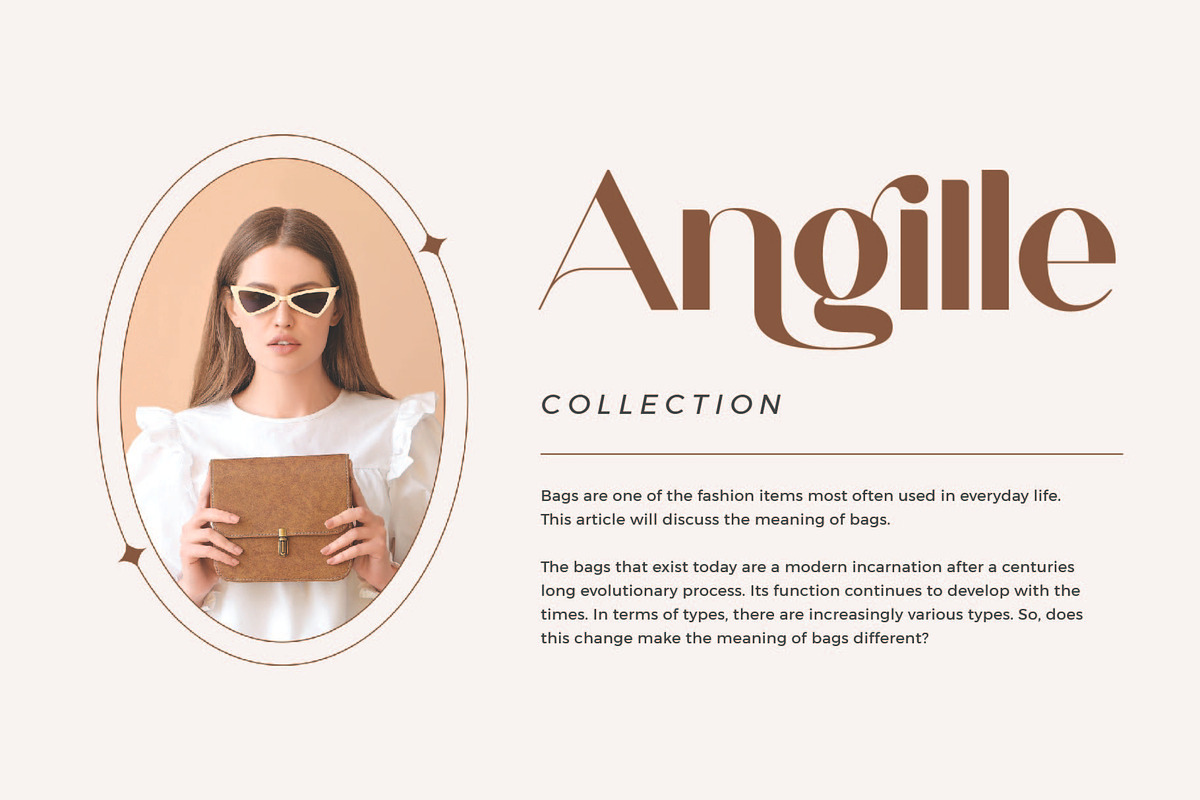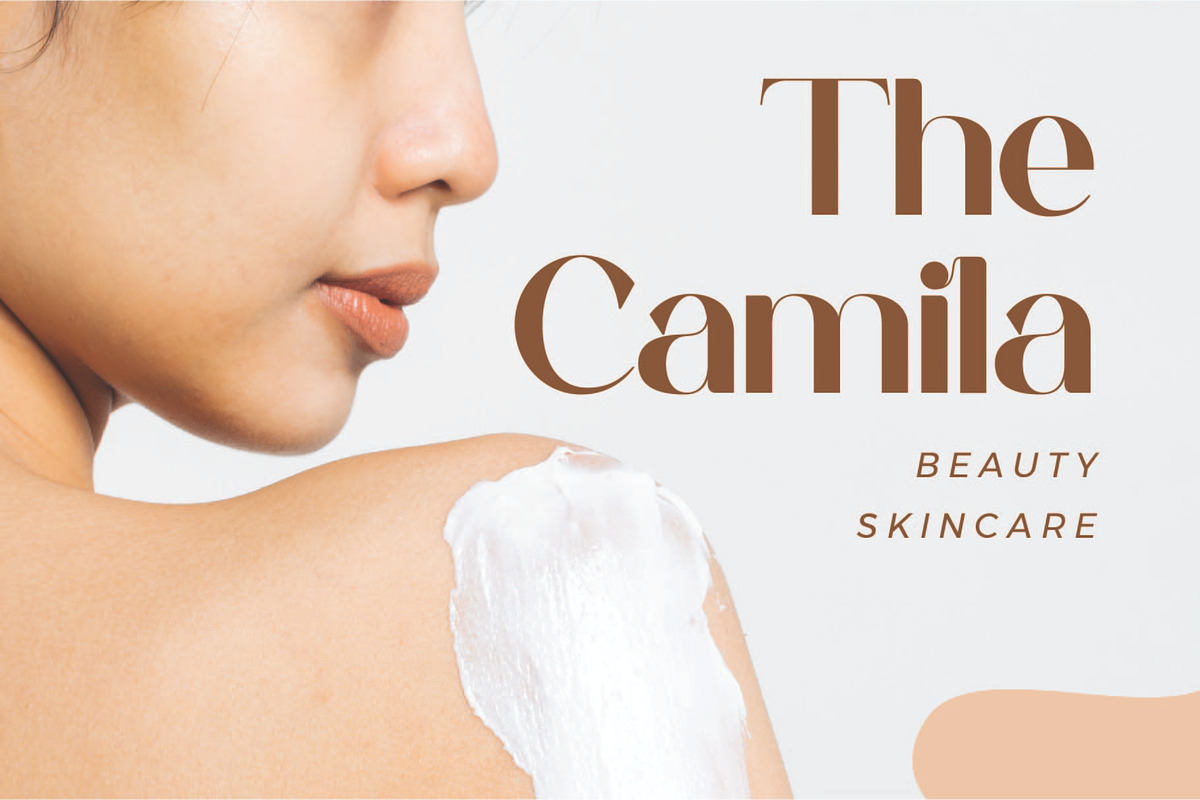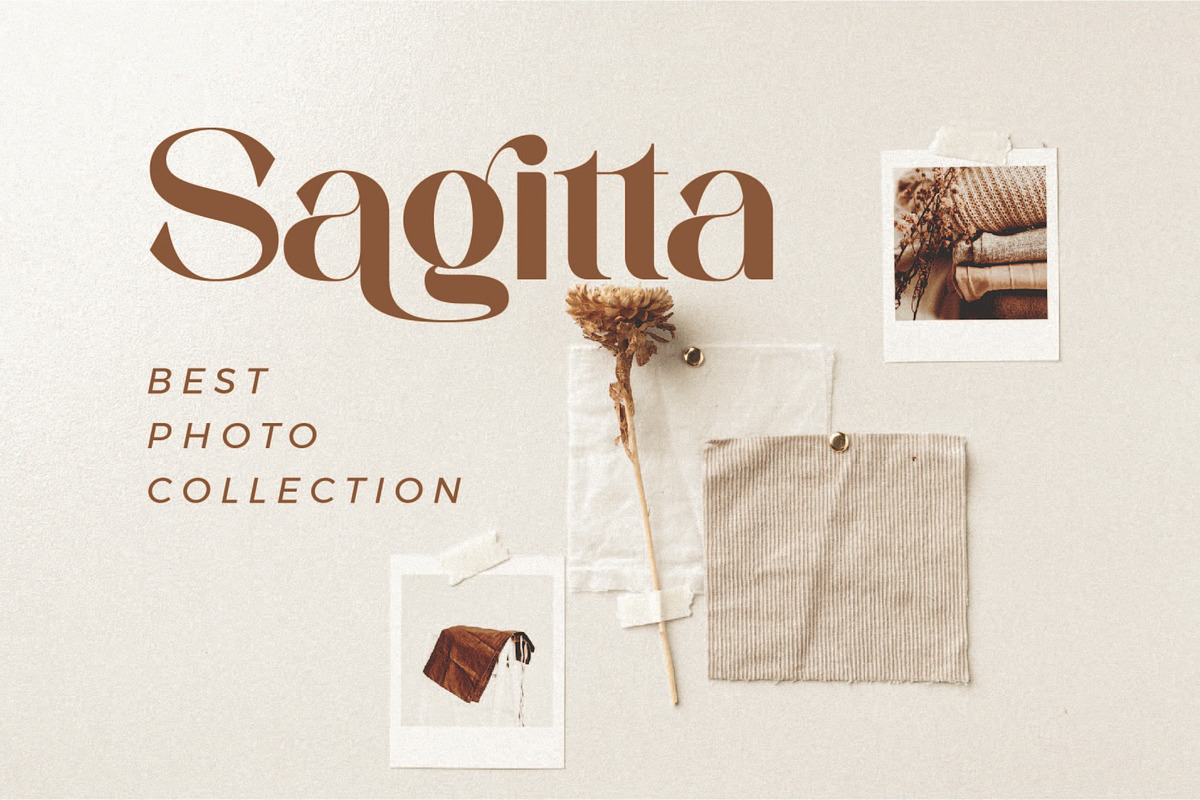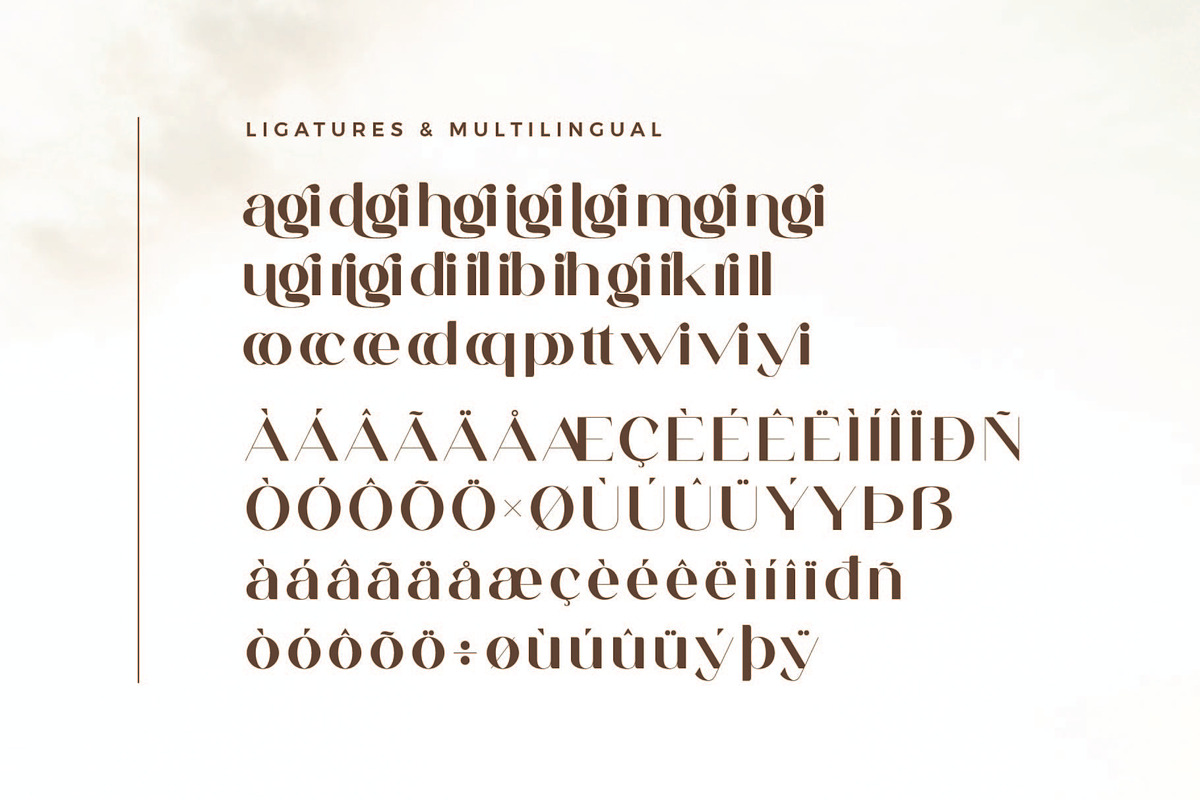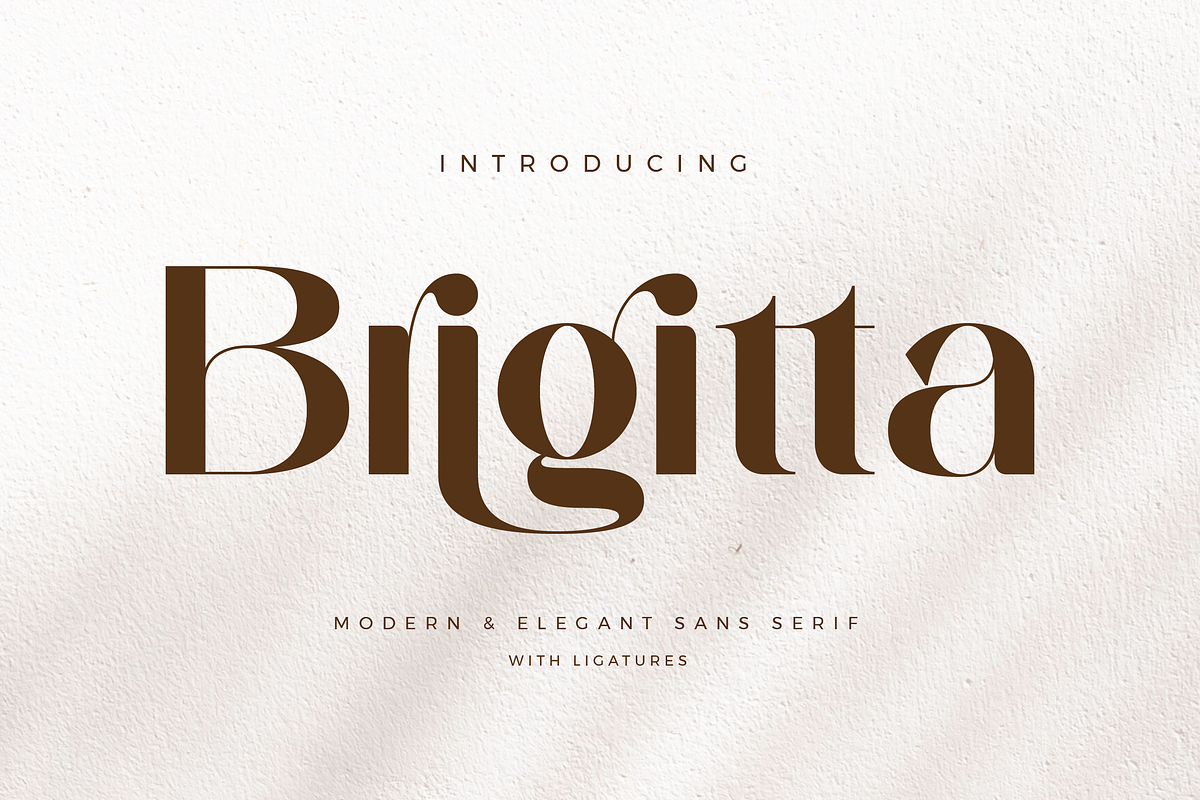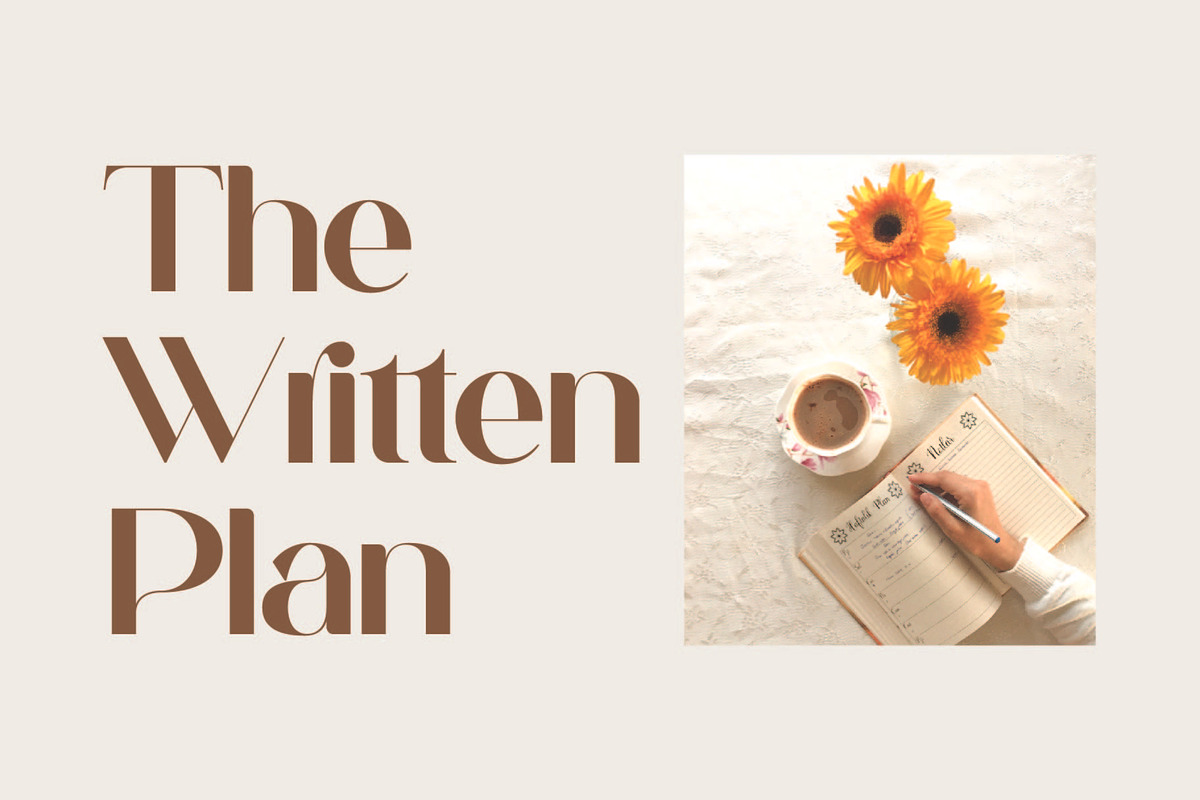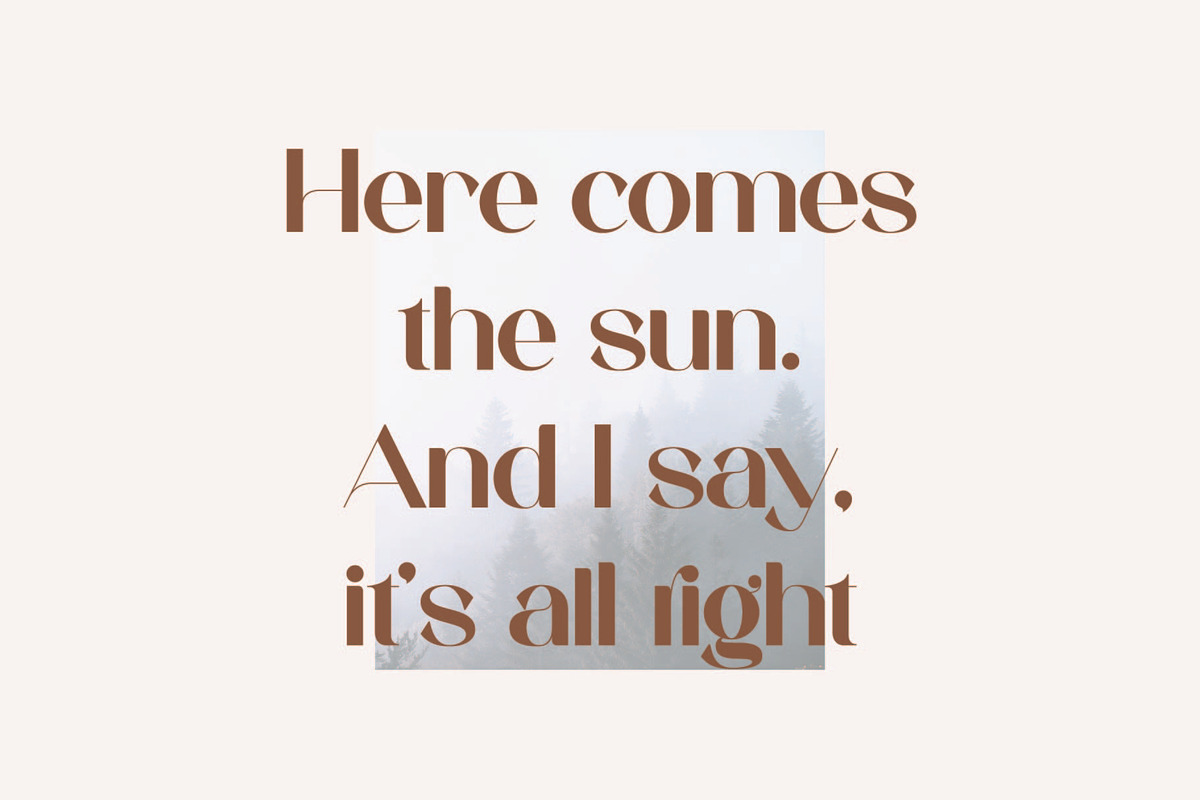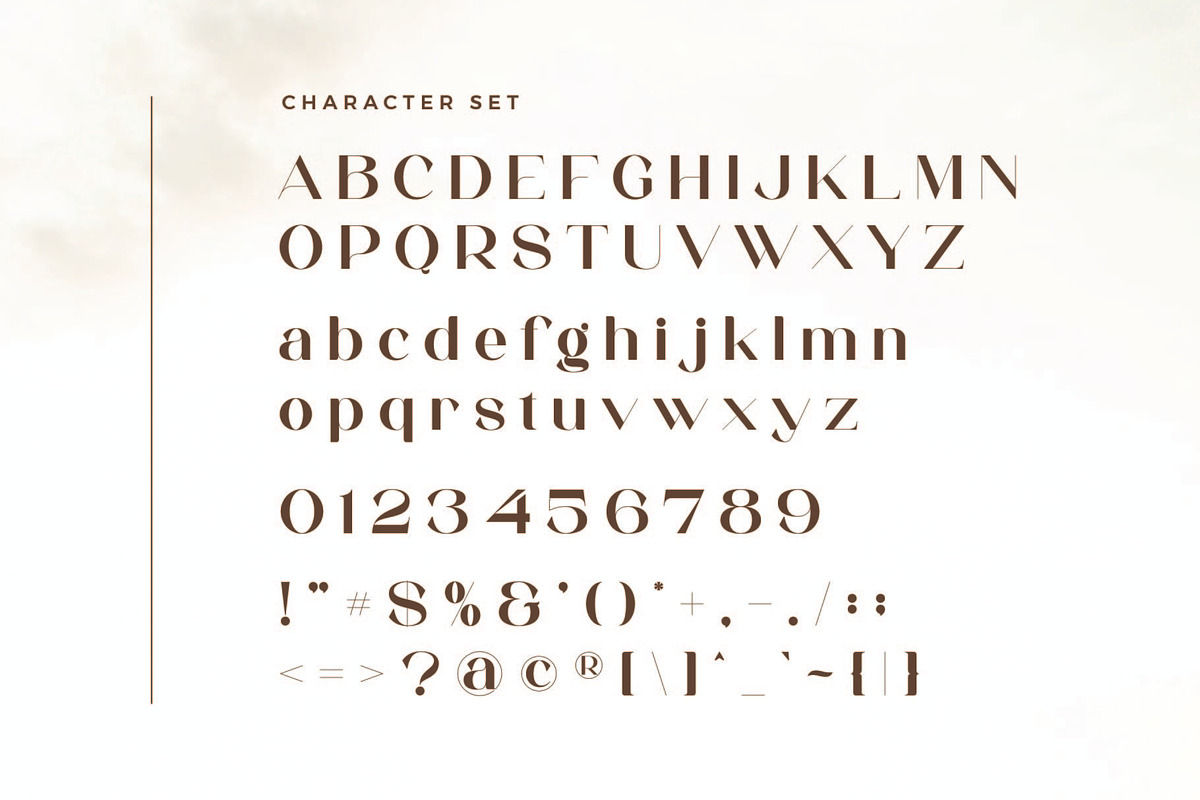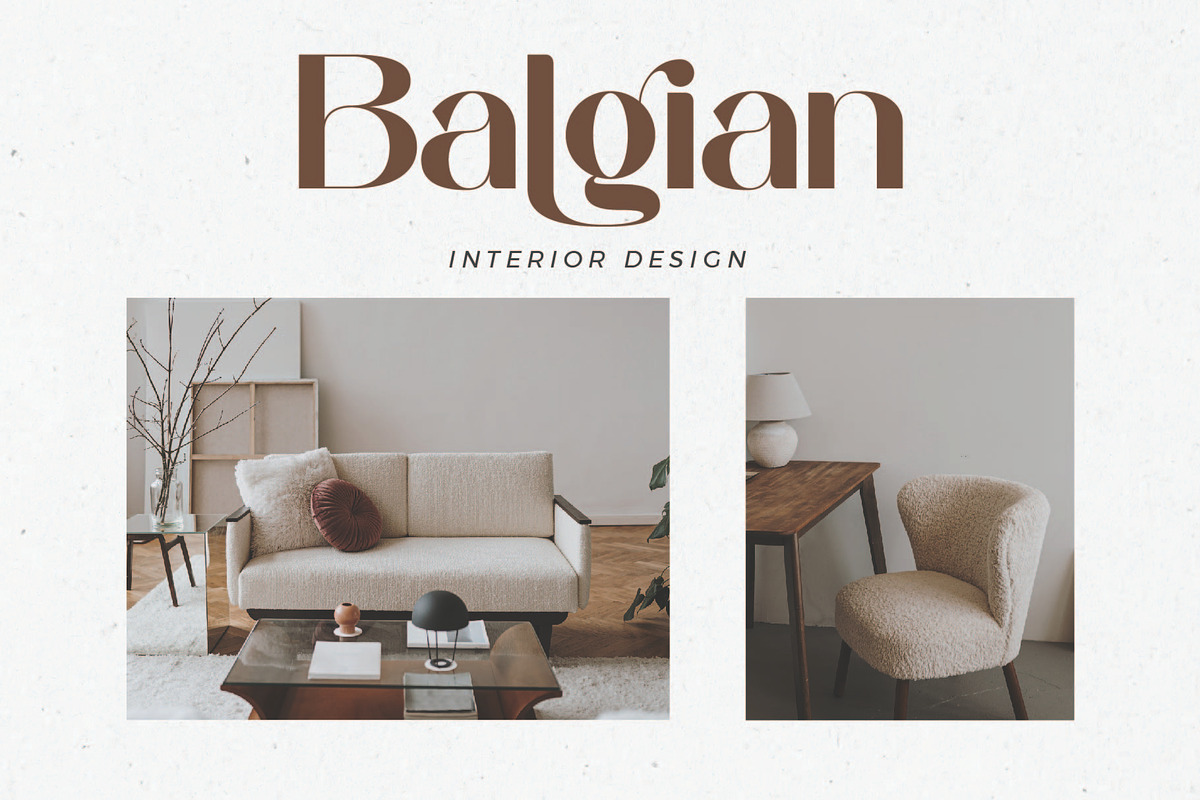
Brigitta - Modern Sans Serif
Brigitta Sans Font Typeface inspired by the famous minimalist logo perfect for the purposes of designing templates, brochures, videos, advertising branding, logos, invitation, layout design, elegant crafting, beauty design and other.